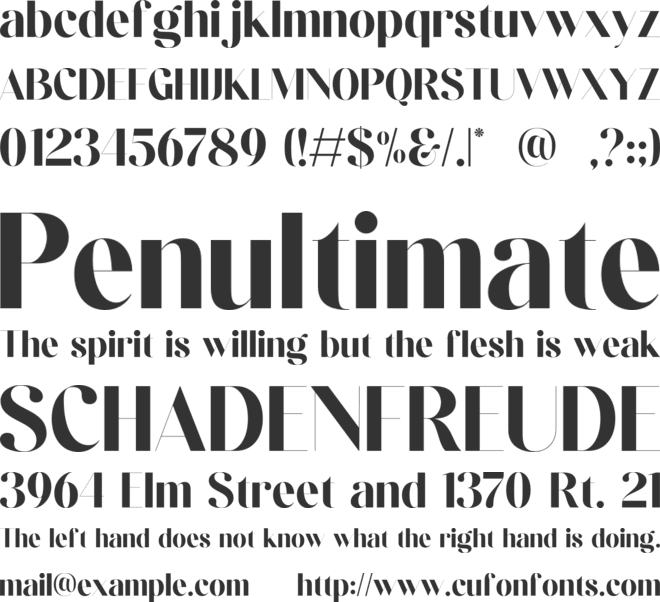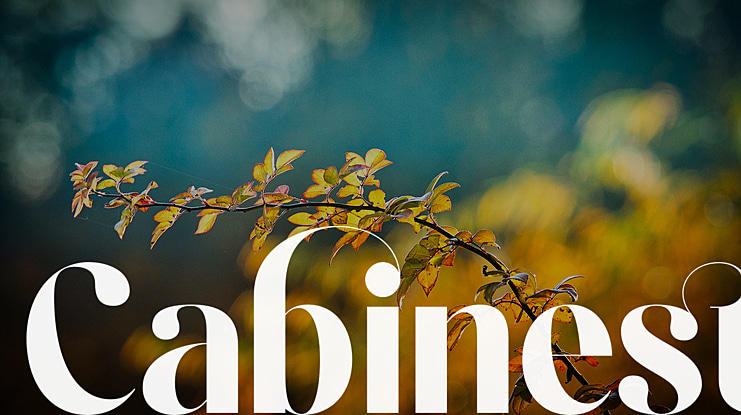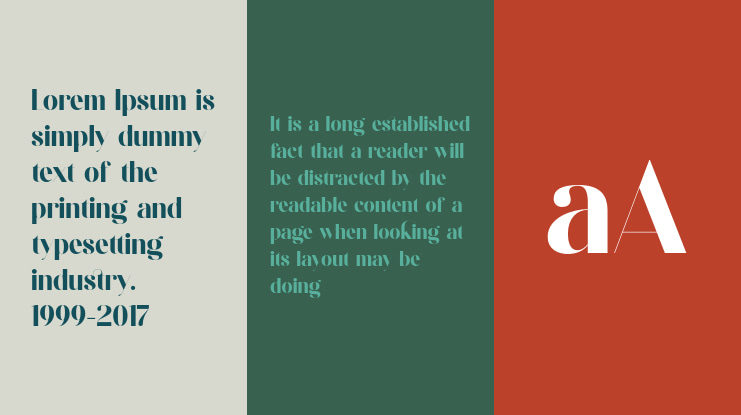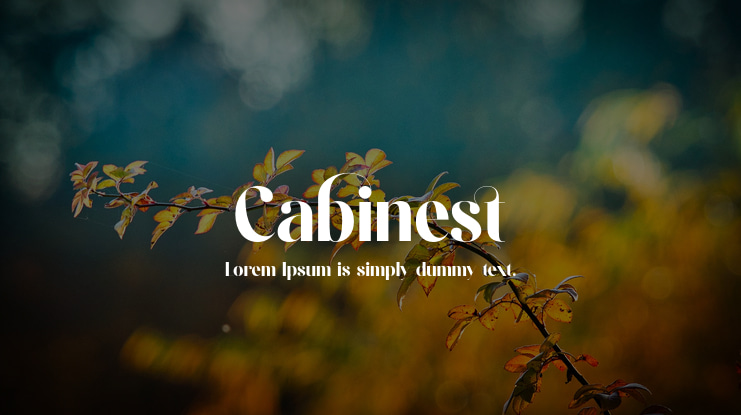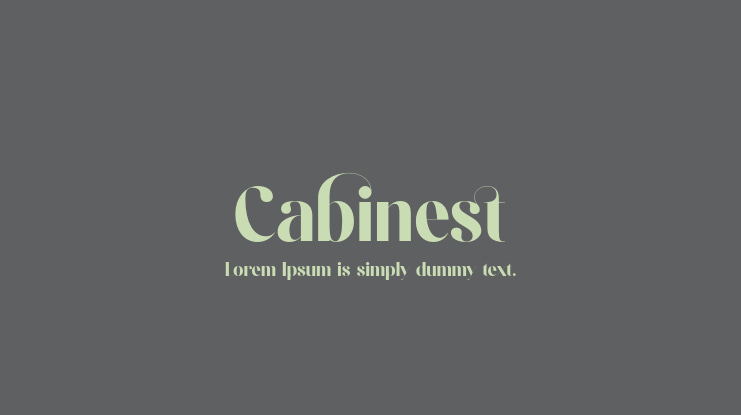
Cabinest Font
This is a bold sans serif font inspired from Gothic and Medieval style. It’s designed and shared by BrandSemut. Cabinest is a elegant and modern typeface, best used as a display for headings, logos, branding, magazines, product packaging and invitations. Cabinest come with clean lines and smooth curves give any project an extra touch of class.